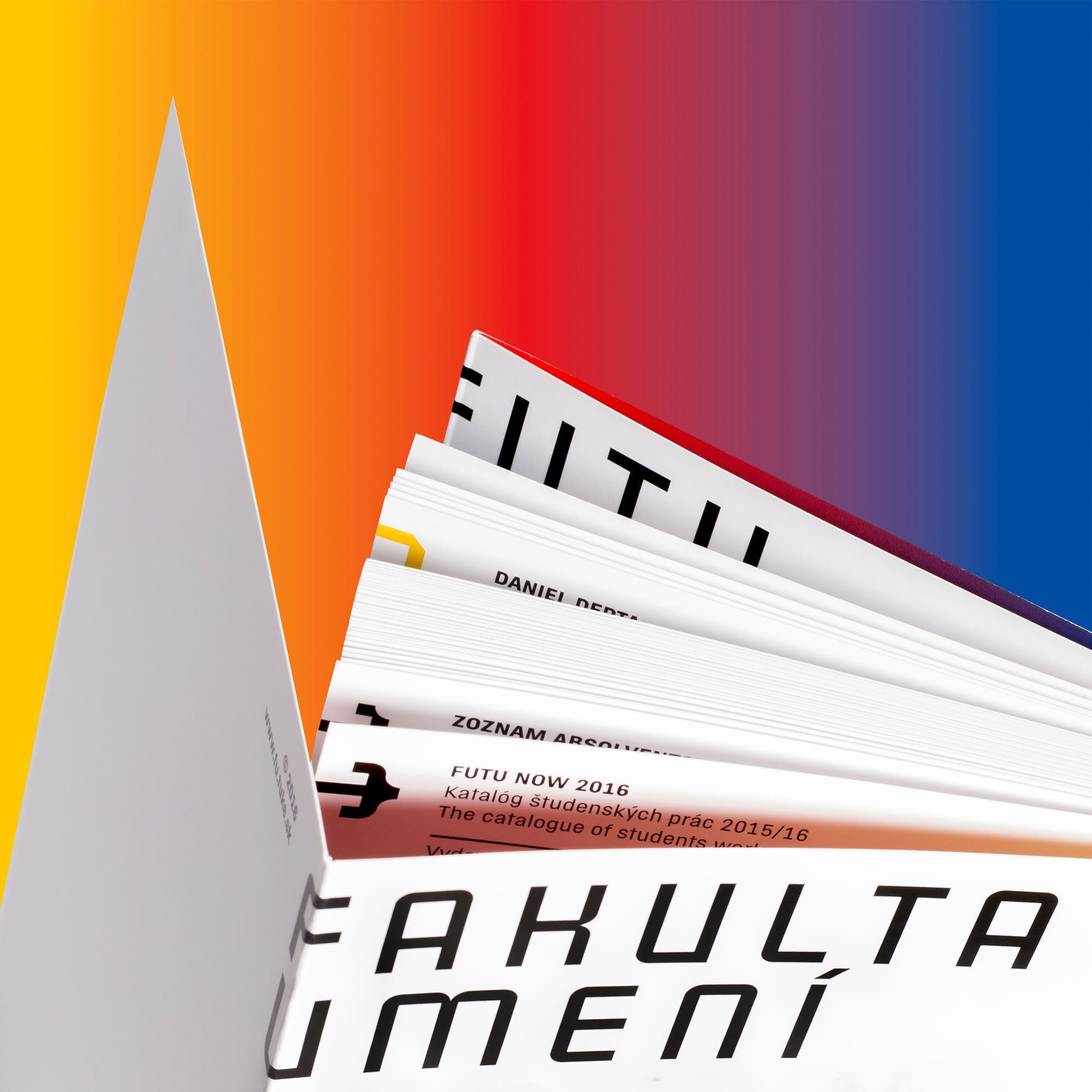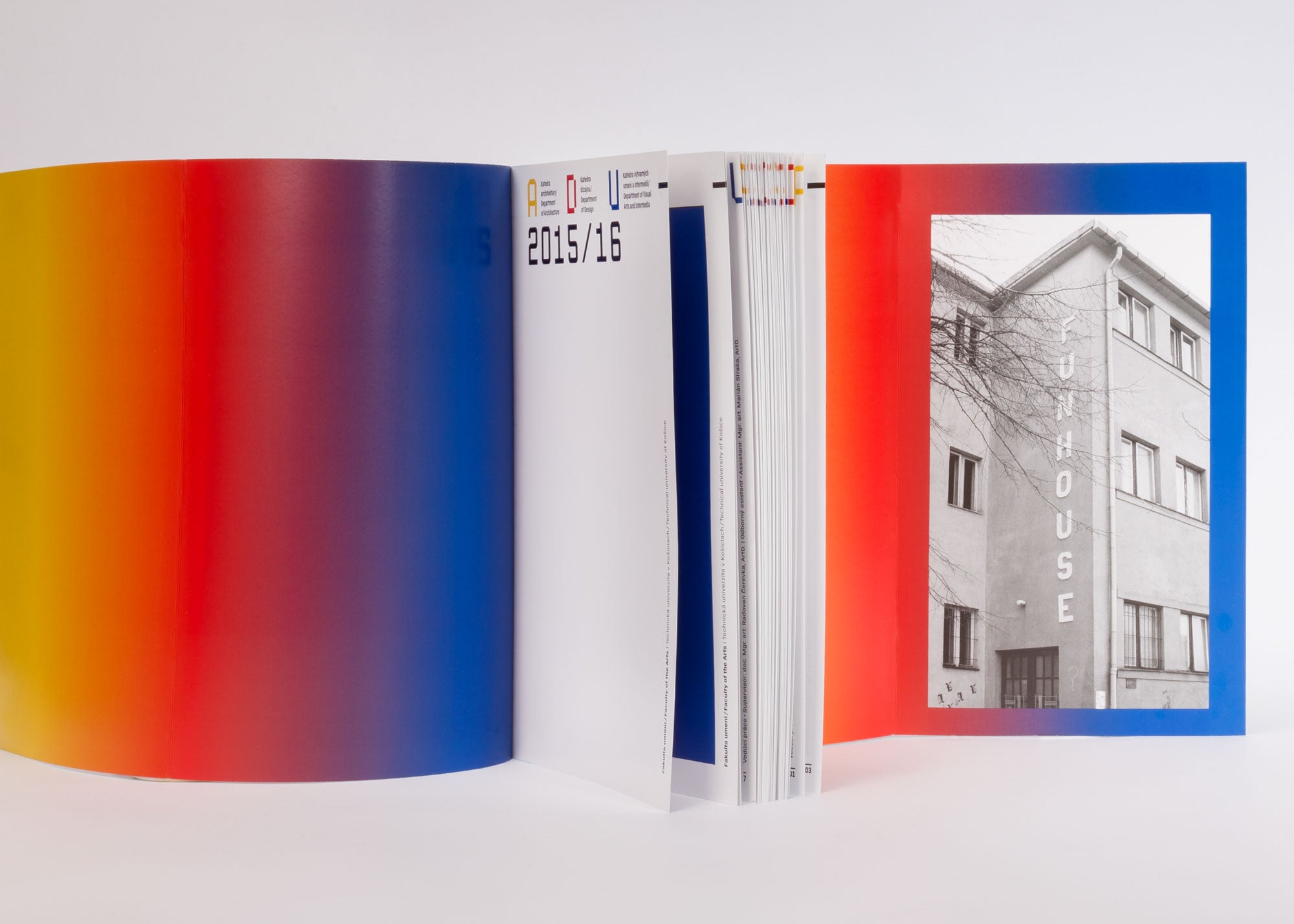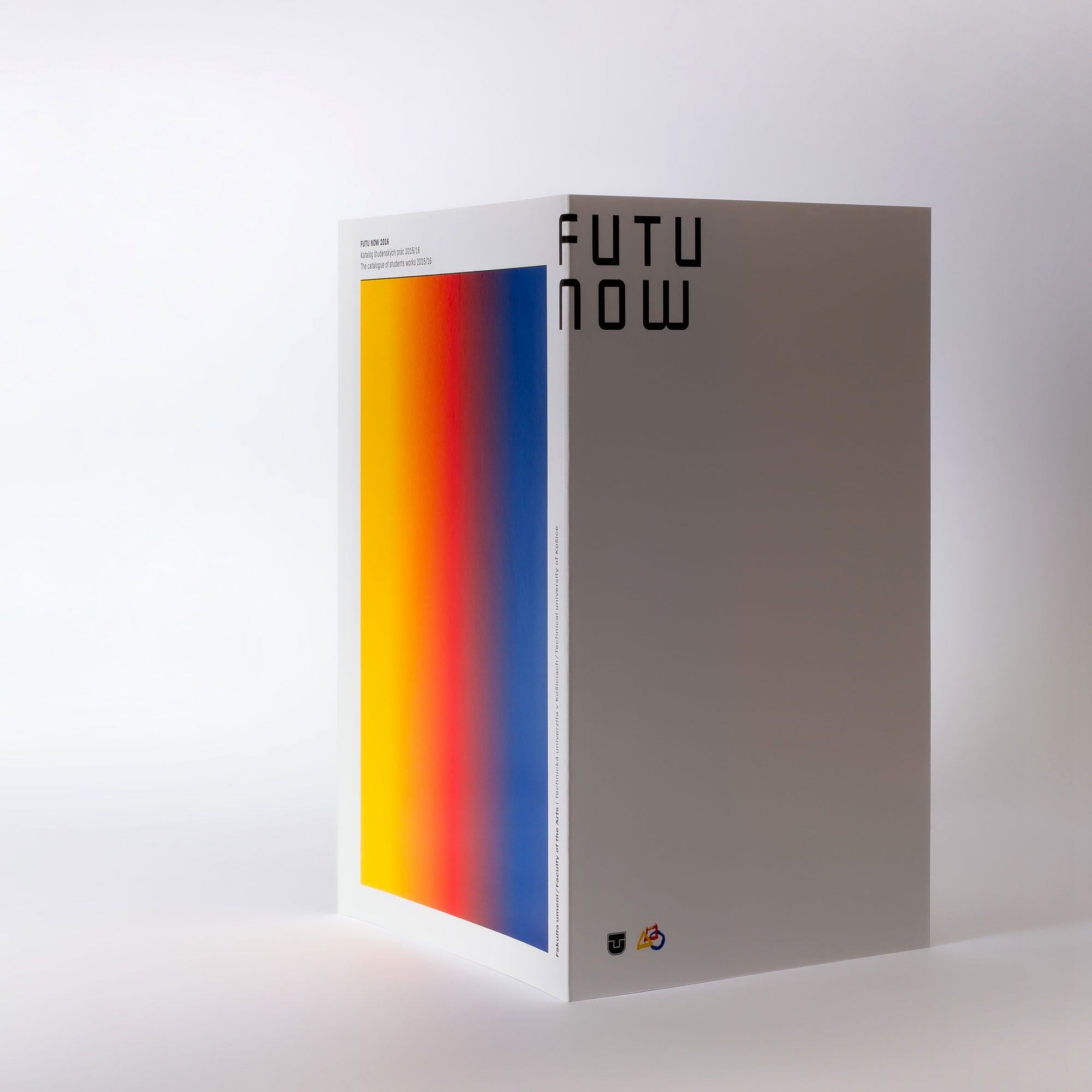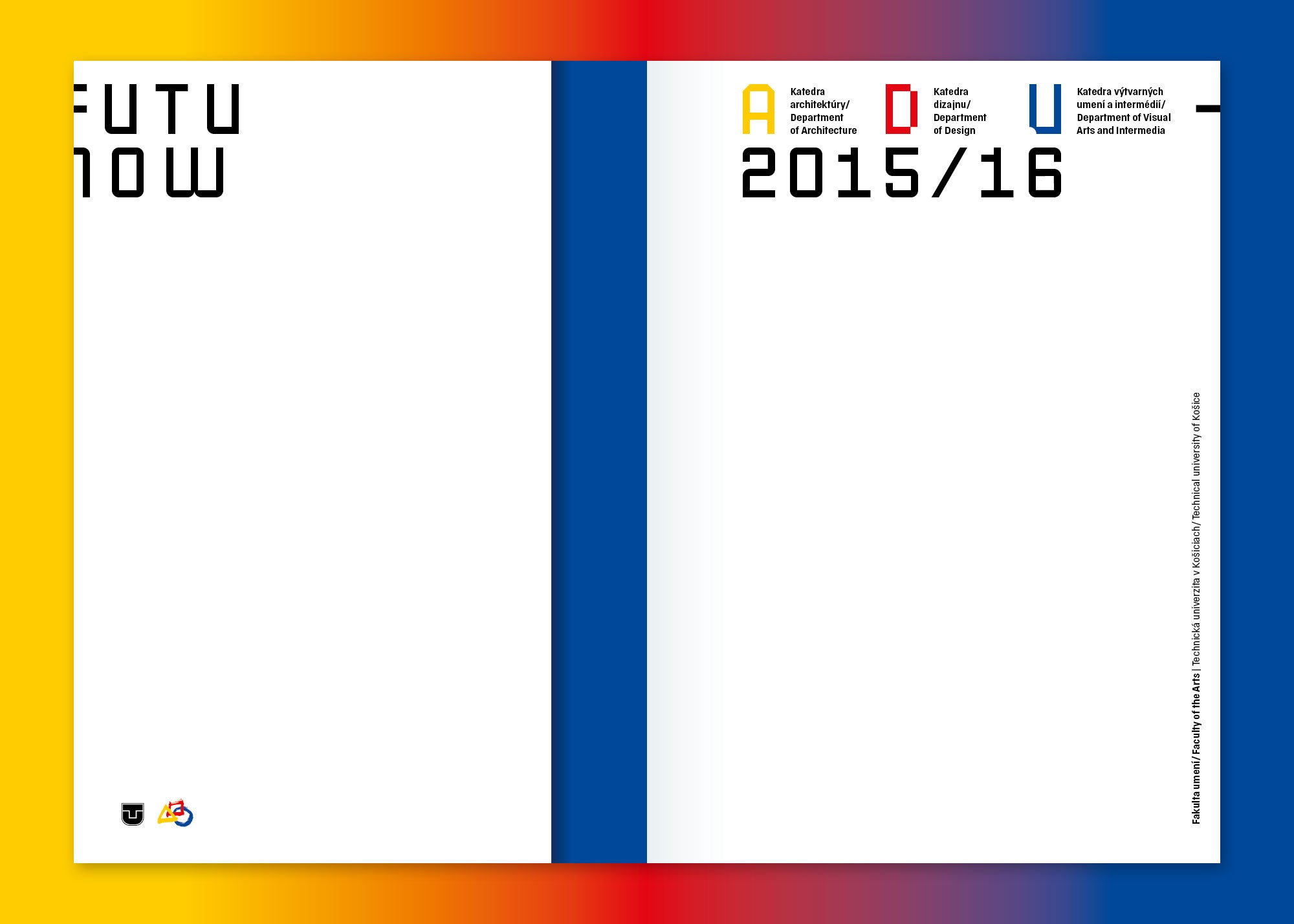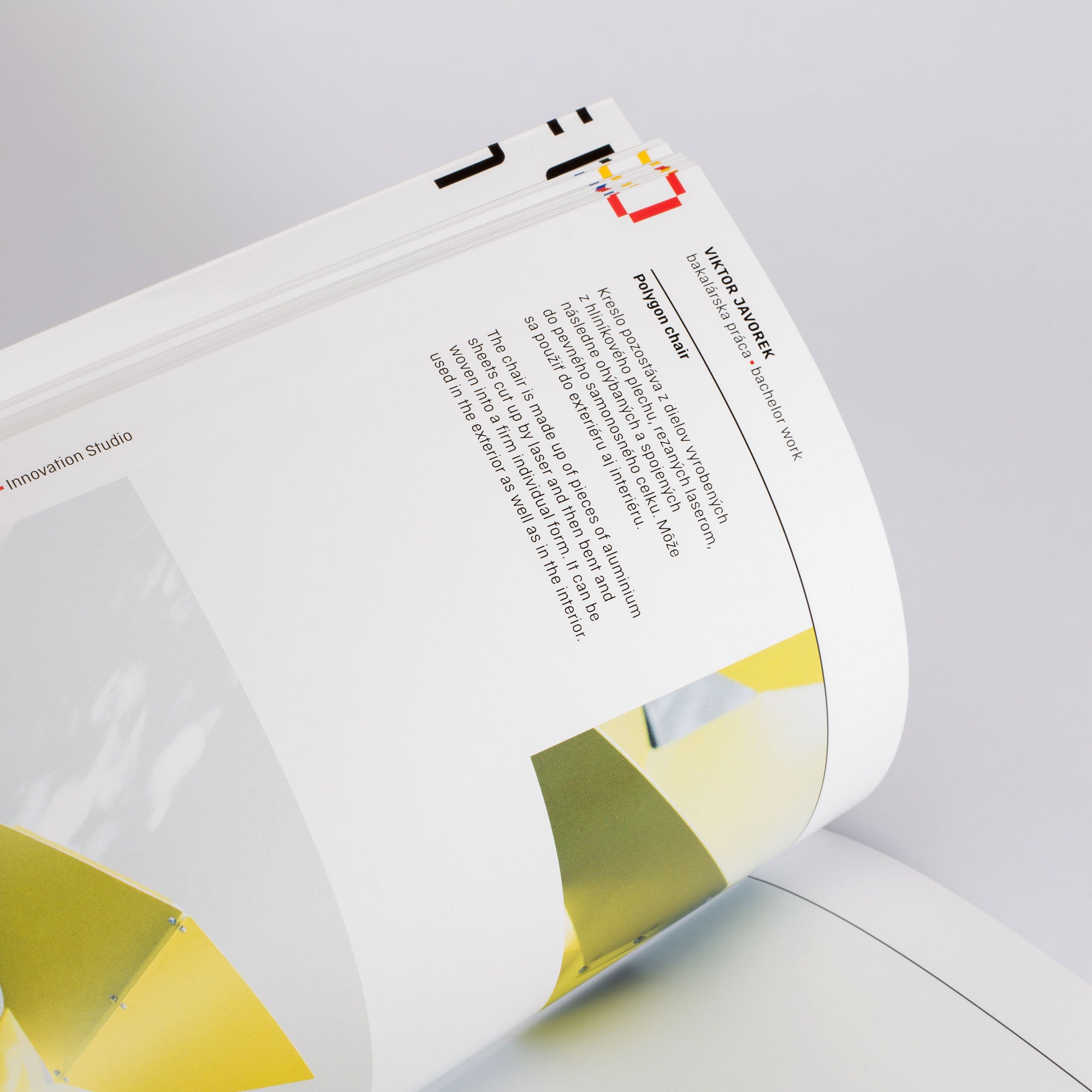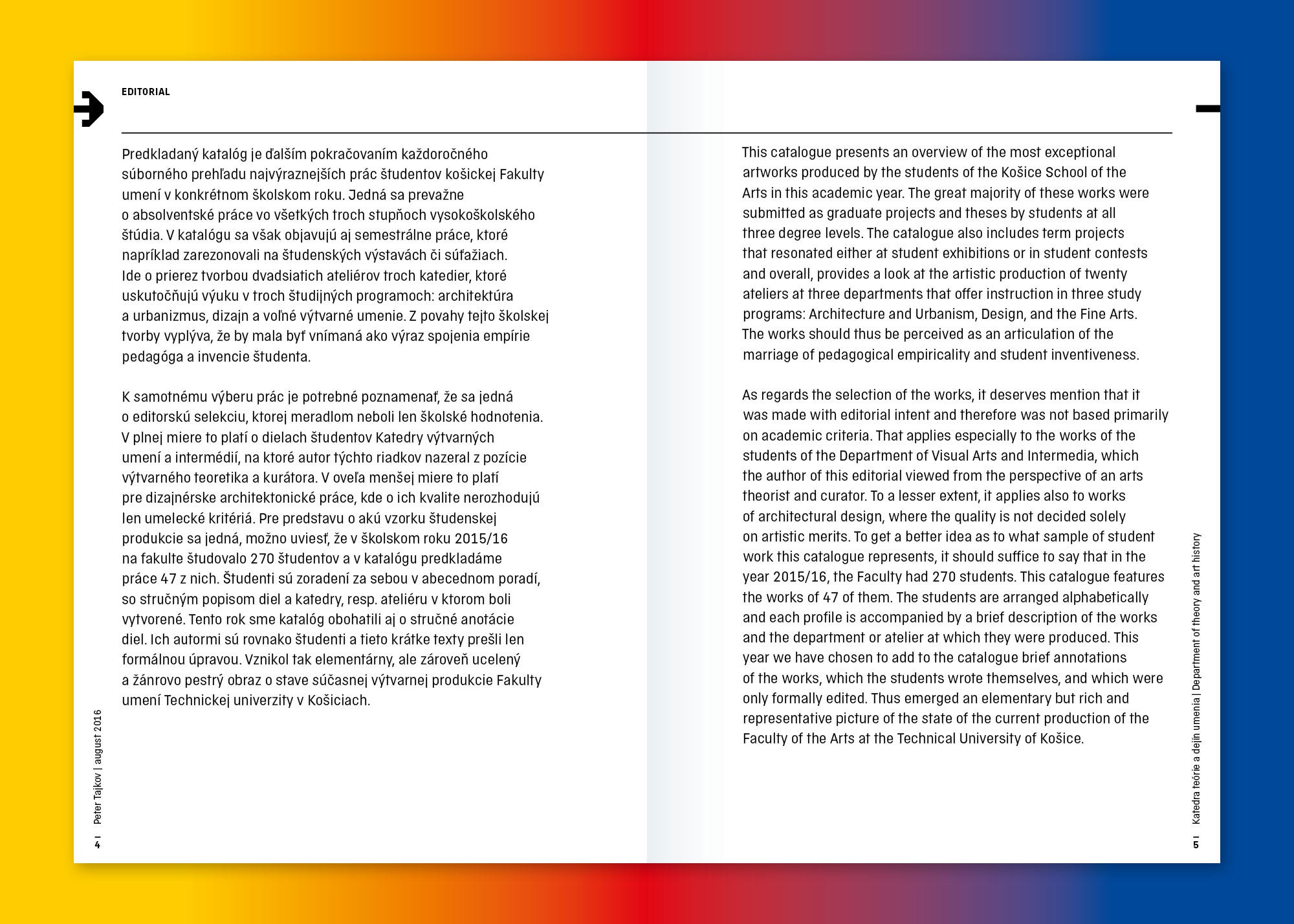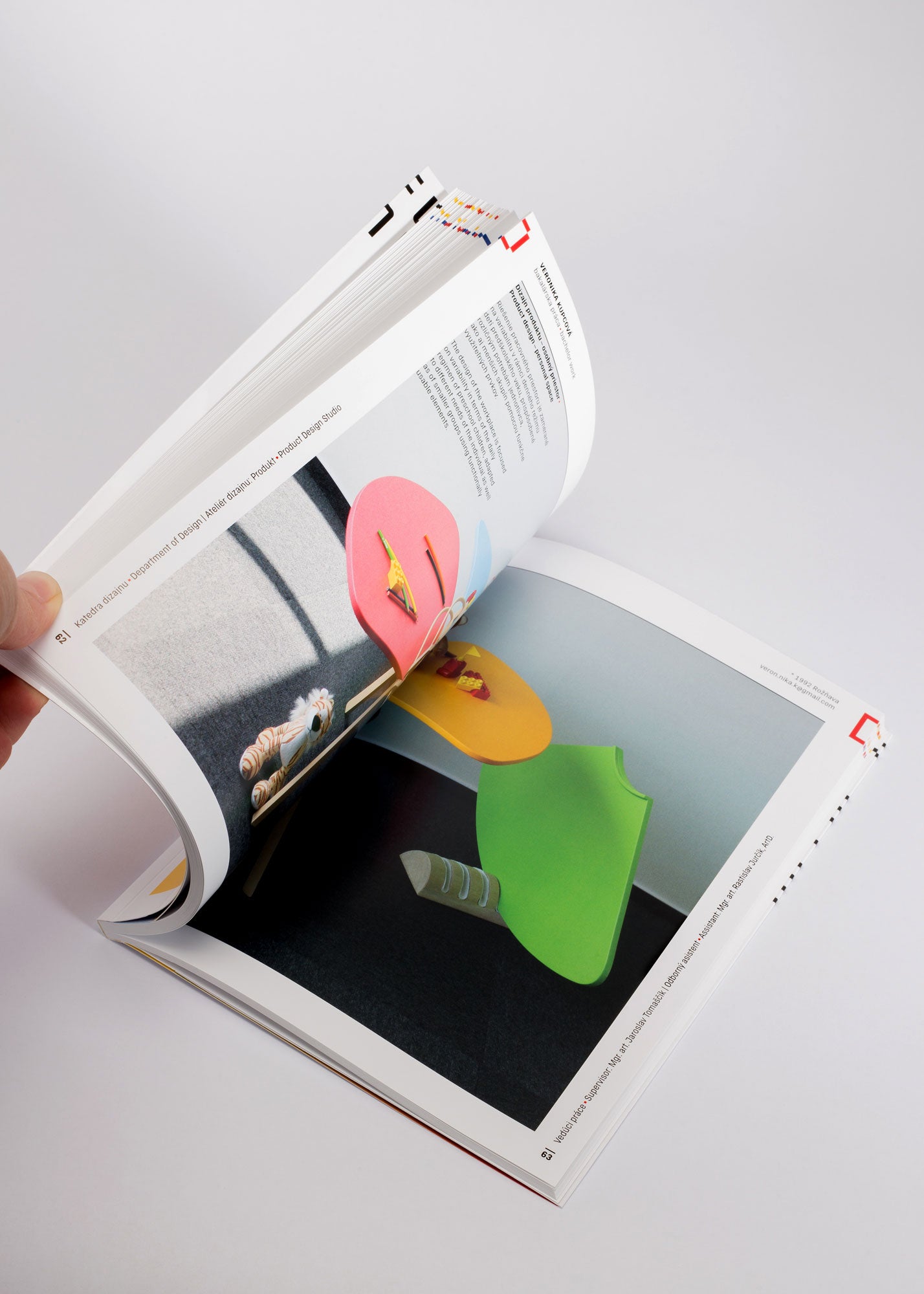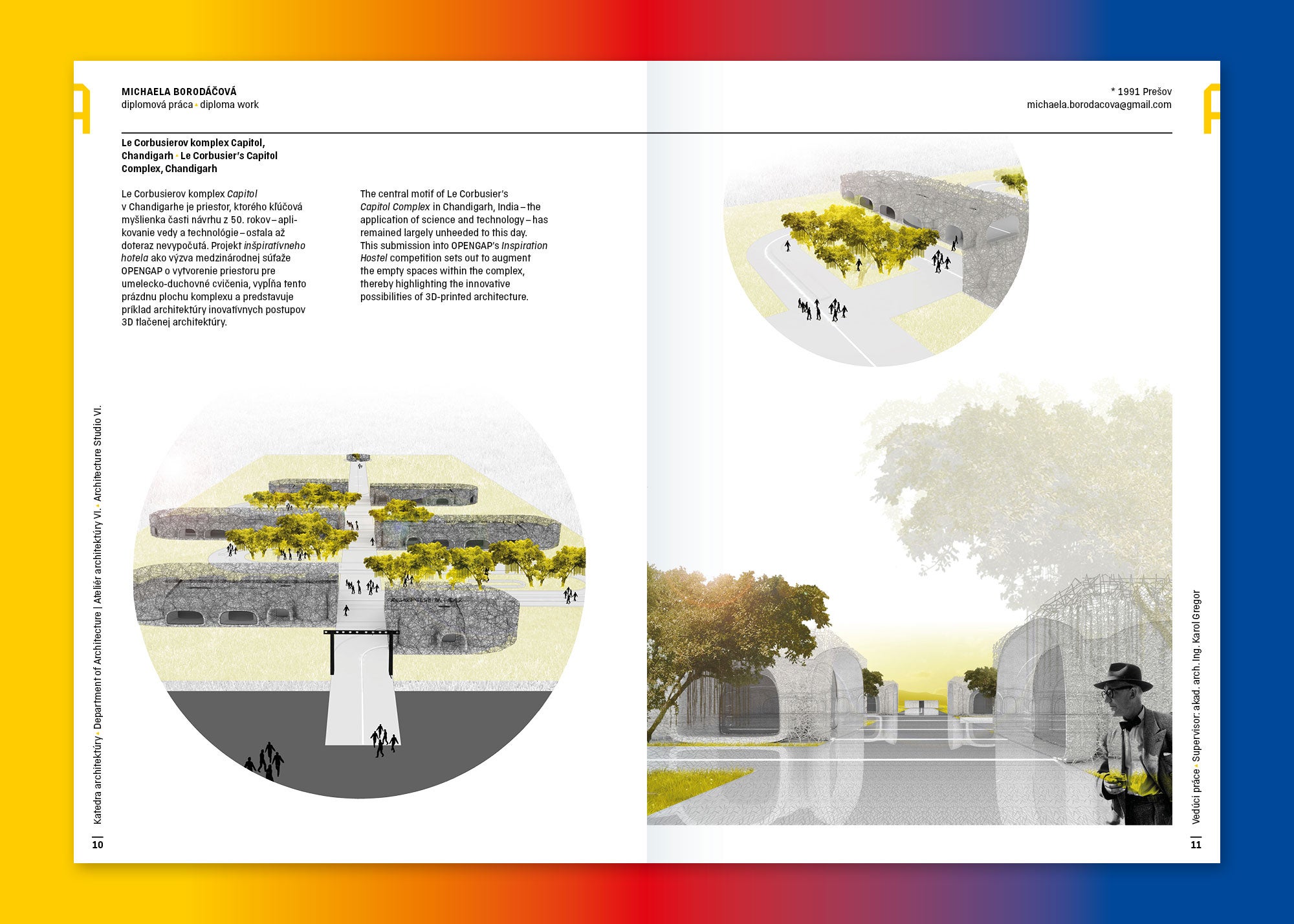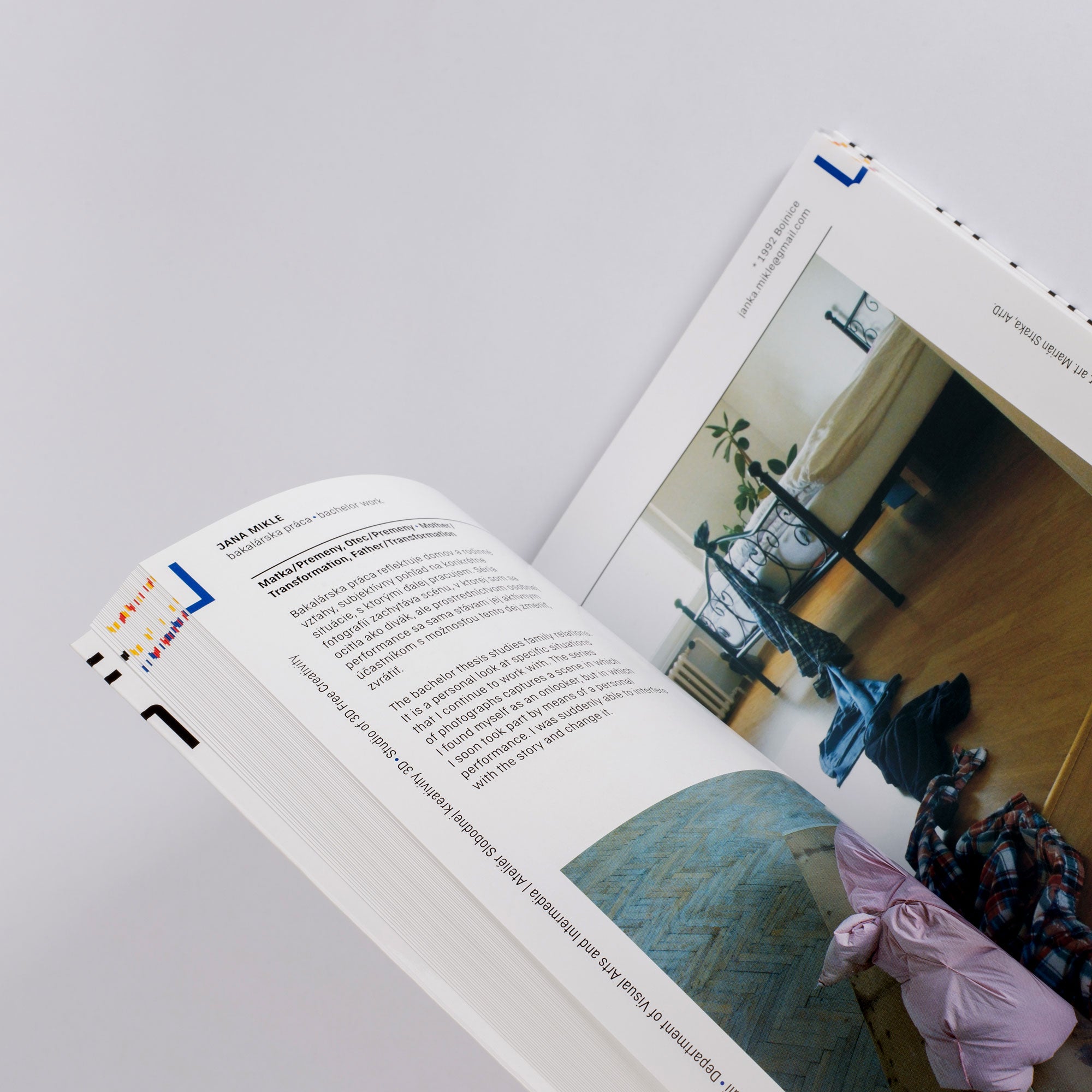
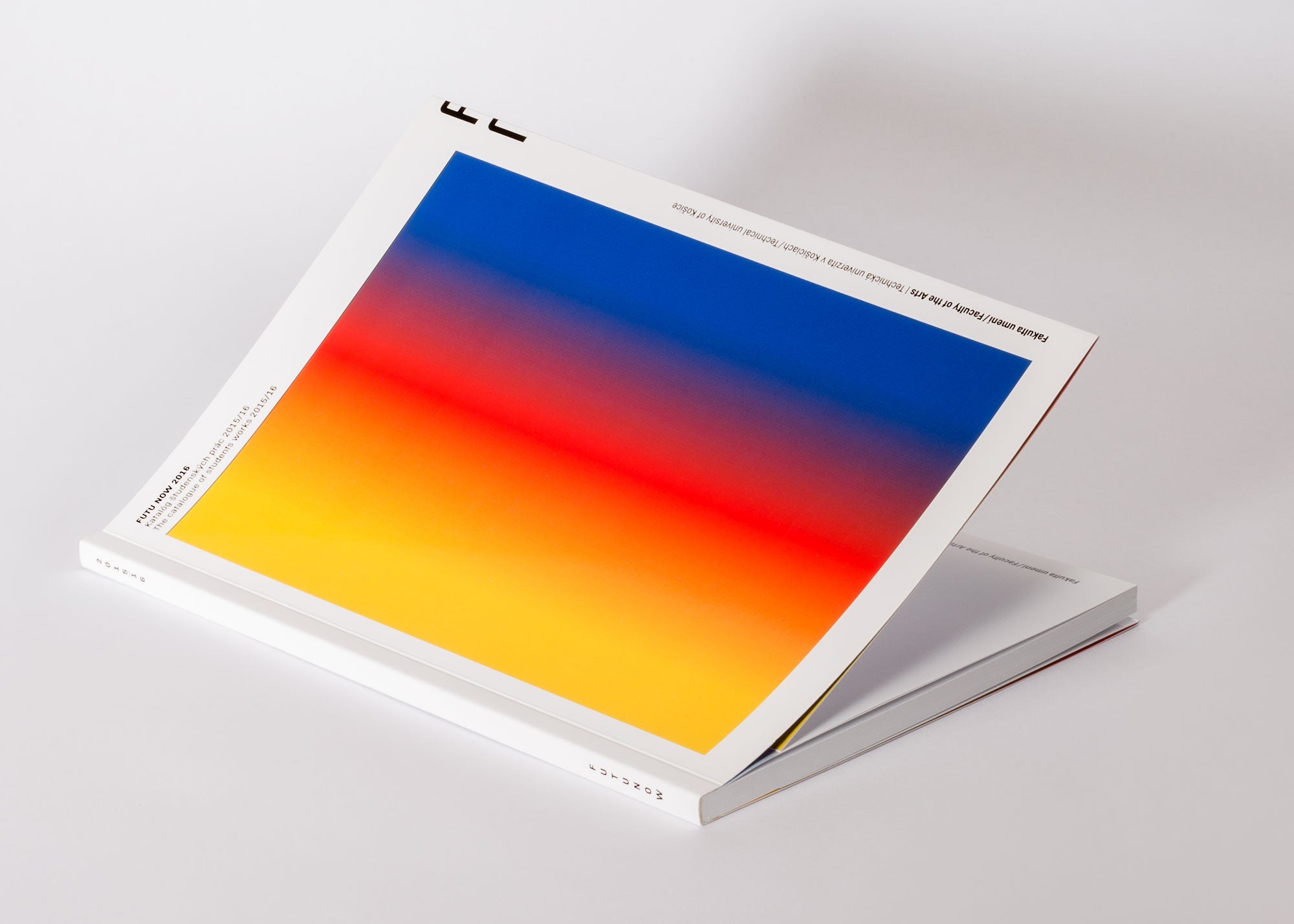
The catalogue FUTU NOW is devised as a year book of final and semestral works of students at the Faculty of Arts at Technical University of Košice. The graphic design makes reference to the original identity of the faculty, which is characterized by combination of three basic colours (yellow — architecture, red — design, blue — fine arts). Only local fonts are used, with the display typeface, Corner, used with the three colours grading into each other, being the core identifying element amongst the published works.